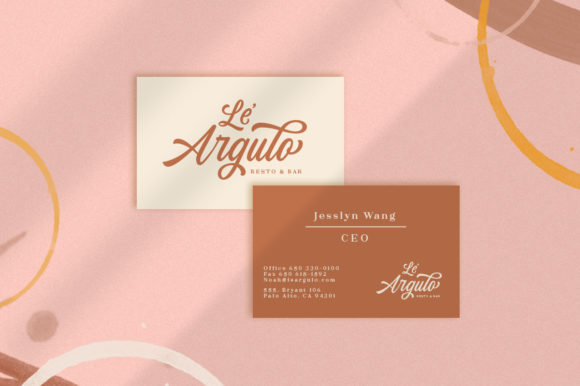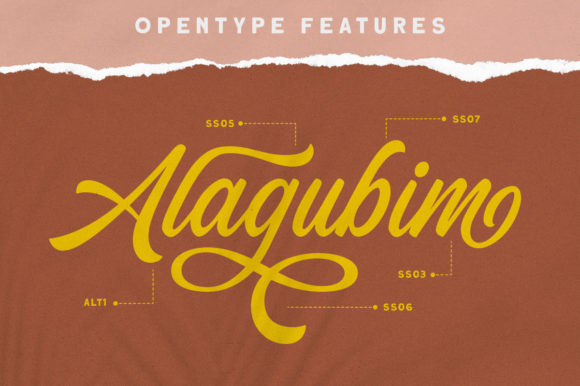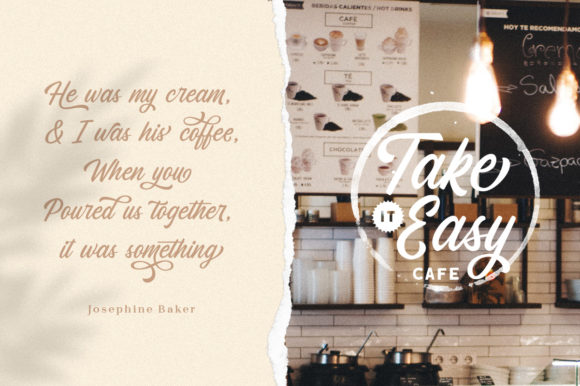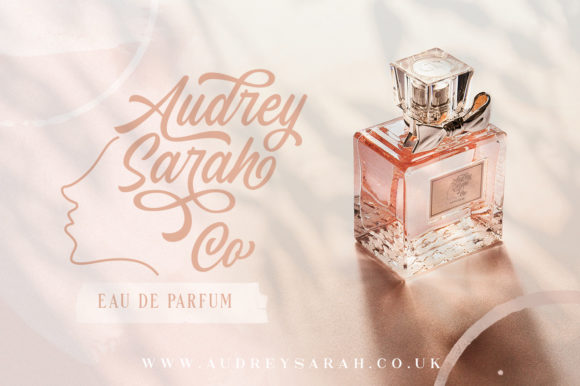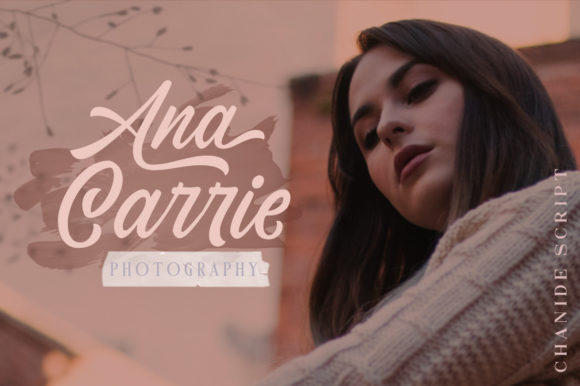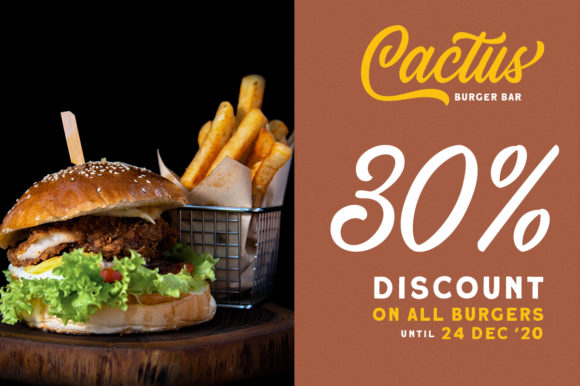
Discover the Elegance of Chanide Font: Elevate Your Designs with a Stunning Calligraphy Script
Are you a designer, craftsperson, or creative enthusiast looking to add a touch of sophistication and uniqueness to your projects? Look no further than the Chanide Font, a breathtaking calligraphy script that exudes an incredibly fancy feel. This stunning font is designed to infuse your creative endeavors with a distinct charm, setting them apart from the ordinary.
What is Chanide Font?
Chanide Font is a meticulously crafted calligraphy script that embodies elegance and luxury. Its intricate and flowing lines are reminiscent of traditional calligraphy, yet it boasts a modern twist that makes it versatile for a wide range of applications. Whether you’re working on a branding project, crafting beautiful wedding invitations, or designing captivating social media graphics, Chanide Font is sure to make a lasting impression.
Key Features of Chanide Font
- Incredibly Fancy Feel: Chanide Font is characterized by its ornate and sophisticated style, making it perfect for projects that demand a high level of elegance.
- Versatility: Despite its luxurious feel, Chanide Font is surprisingly versatile. It can be used for a variety of projects, from digital content to print materials, and can easily adapt to different design contexts.
- Unique Charm: The font’s distinctive appearance ensures that your designs stand out. With Chanide Font, you can add a unique touch to your creative ideas, making them more memorable and engaging.
- Ease of Use: Designed with the user in mind, Chanide Font is easy to integrate into your projects, whether you’re working with graphic design software or simply need a stylish font for your blog or social media posts.
How to Use Chanide Font in Your Designs
Incorporating Chanide Font into your projects is straightforward. Here are a few ideas to get you started:
- Branding and Logos: Use Chanide Font to create a luxurious brand identity. Its elegant appearance makes it ideal for high-end brands looking to convey sophistication and class.
- Wedding and Event Invitations: Add a touch of romance and elegance to your wedding or event invitations. Chanide Font’s calligraphy style is perfect for formal events and can help set the tone for a memorable occasion.
- Social Media Graphics: Elevate your social media presence with stunning graphics featuring Chanide Font. It’s a great way to make your posts stand out and attract more attention.
- Packaging Design: For products that require a premium feel, consider using Chanide Font in your packaging design. It can add a luxurious touch that enhances the unboxing experience.
Tips for Maximizing the Impact of Chanide Font
To get the most out of Chanide Font, consider the following tips:
- Pair with Complementary Fonts: For optimal results, pair Chanide Font with simpler fonts that complement its luxurious feel. This contrast will help highlight the elegance of the font.
- Choose Appropriate Colors: Select colors that match the tone of your project. Neutral tones like gold, navy blue, or soft pastels can enhance the sophisticated appearance of Chanide Font.
- Experiment with Sizes: Don’t be afraid to experiment with different font sizes. Chanide Font can make a significant impact when used in large headings, but it can also add subtle elegance when used in smaller text.
Chanide Font is a stunning calligraphy script that offers designers and crafters a unique opportunity to add an incredibly fancy feel to their projects. With its elegant appearance, versatility, and ease of use, it’s an excellent choice for anyone looking to elevate their designs. Whether you’re aiming to create luxurious branding, beautiful invitations, or captivating social media graphics, Chanide Font is sure to help you achieve your creative goals. So why wait? Discover the elegance of Chanide Font today and add a unique charm to your next creative idea!